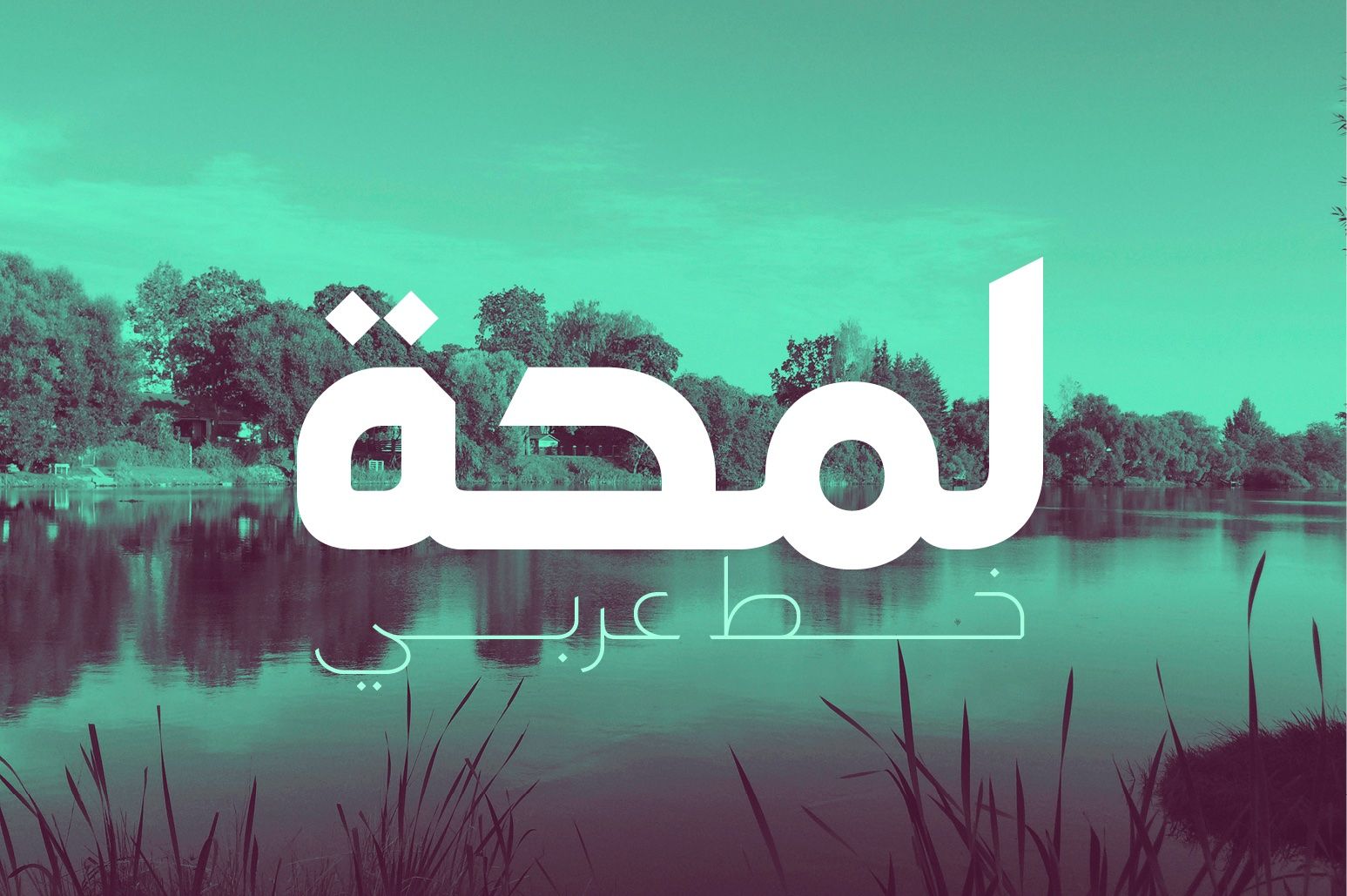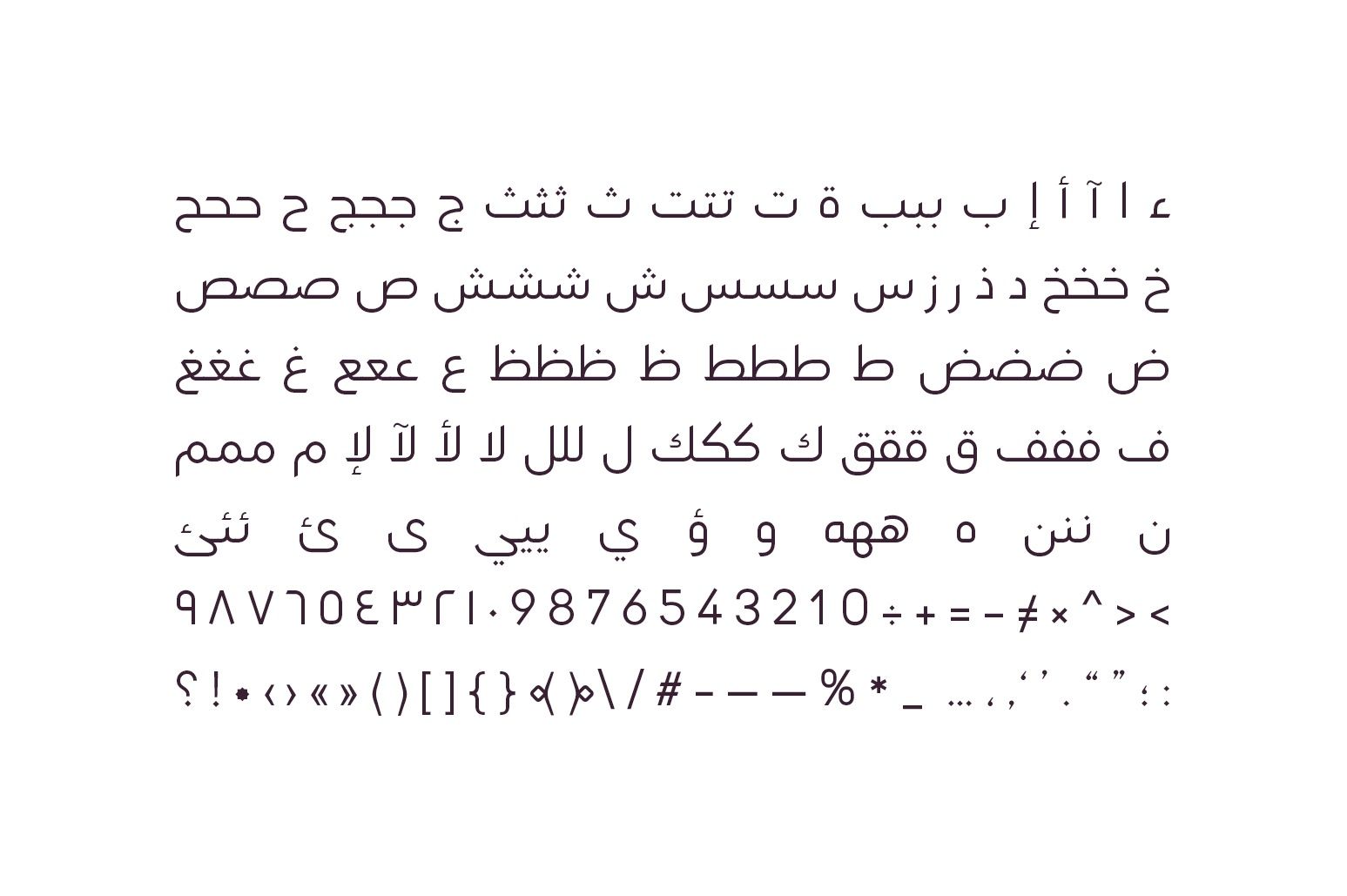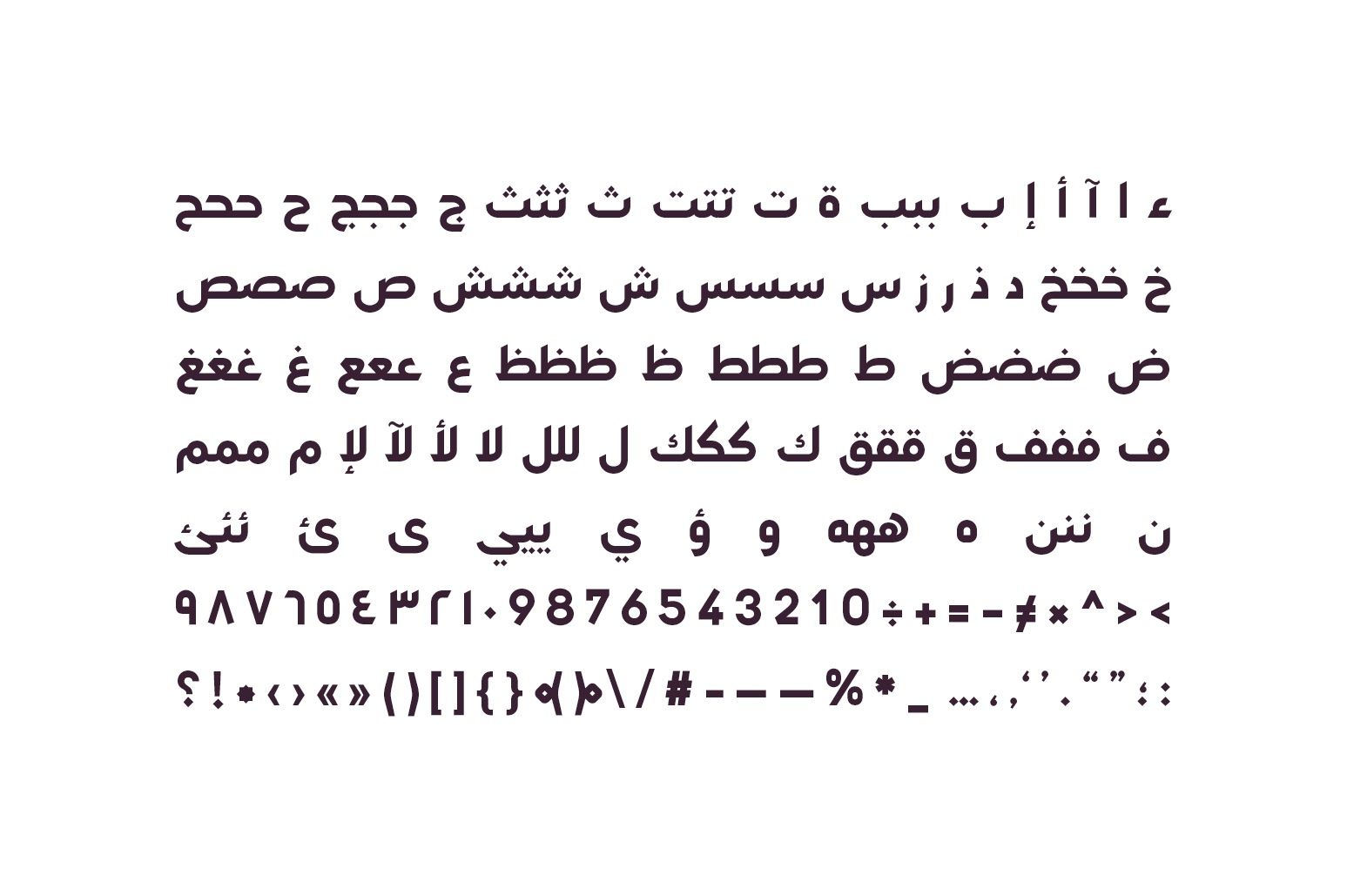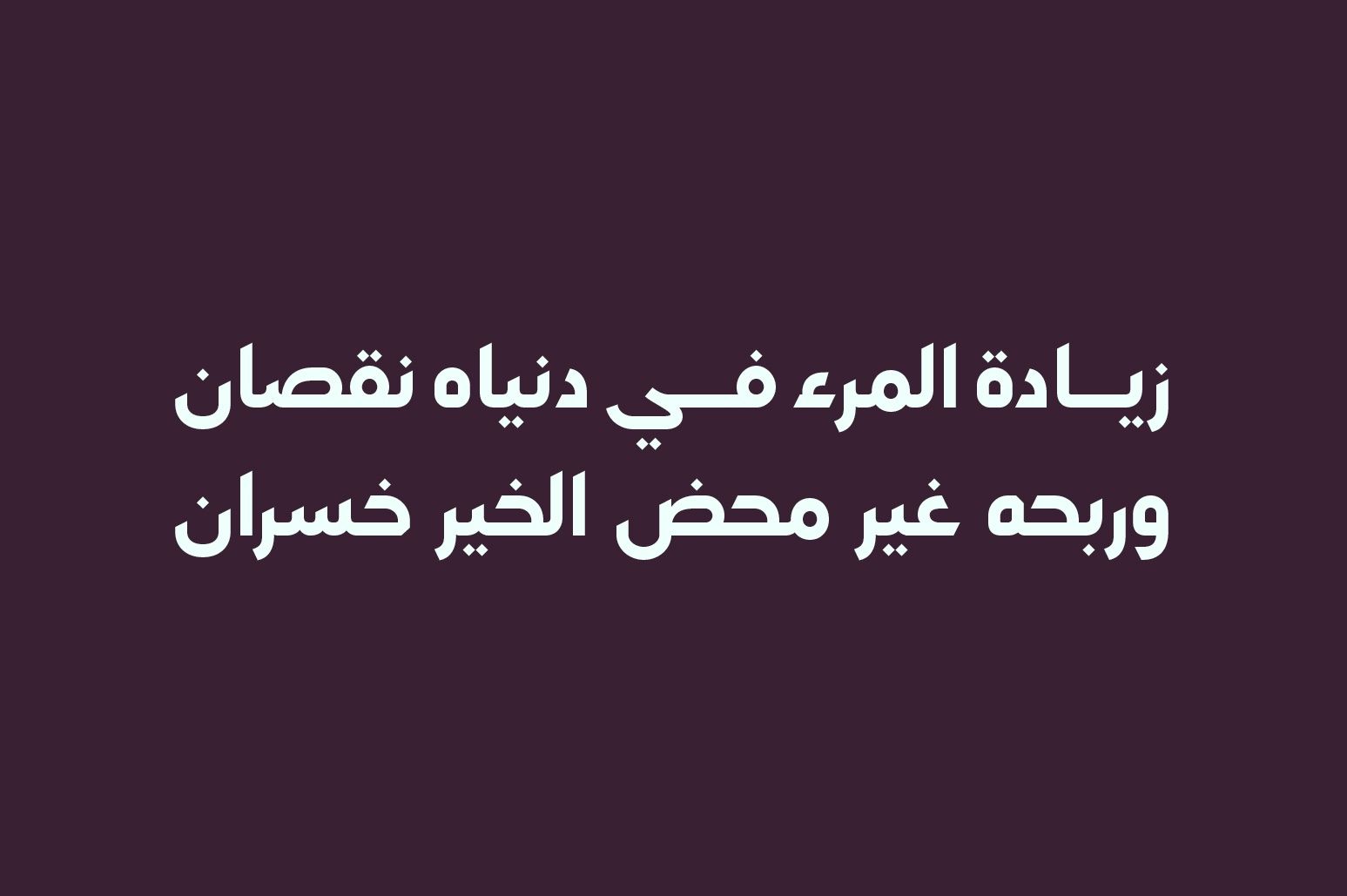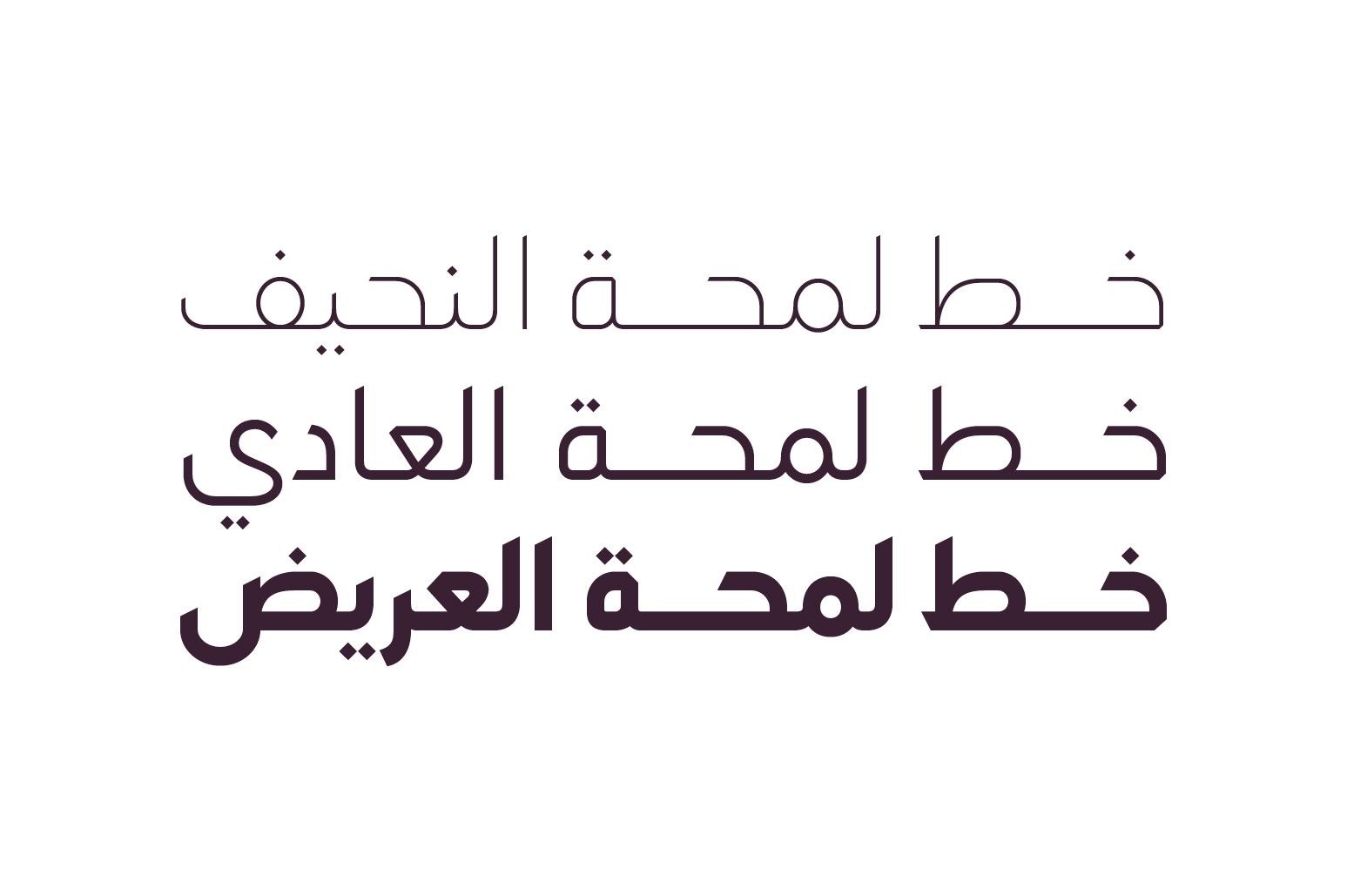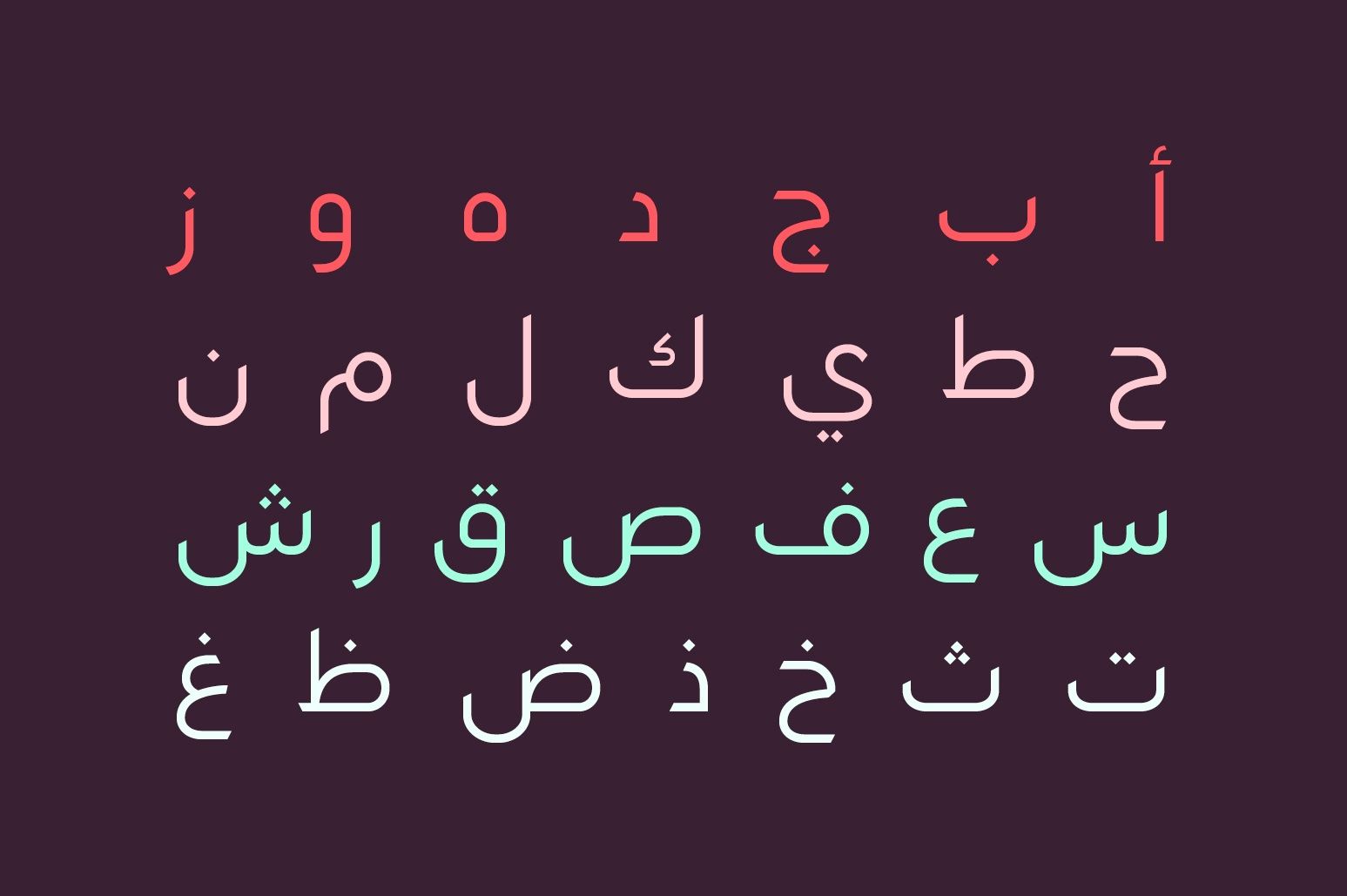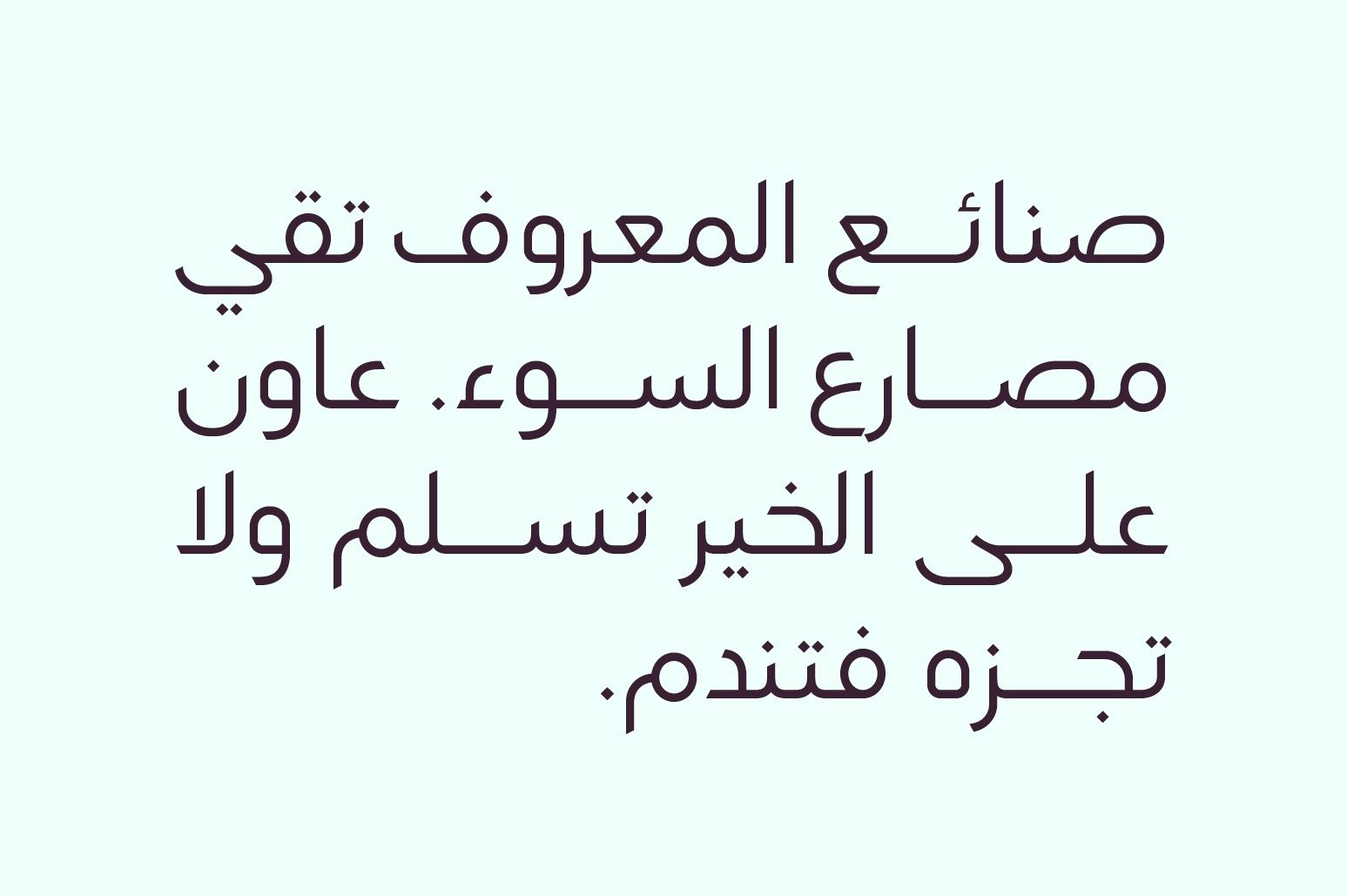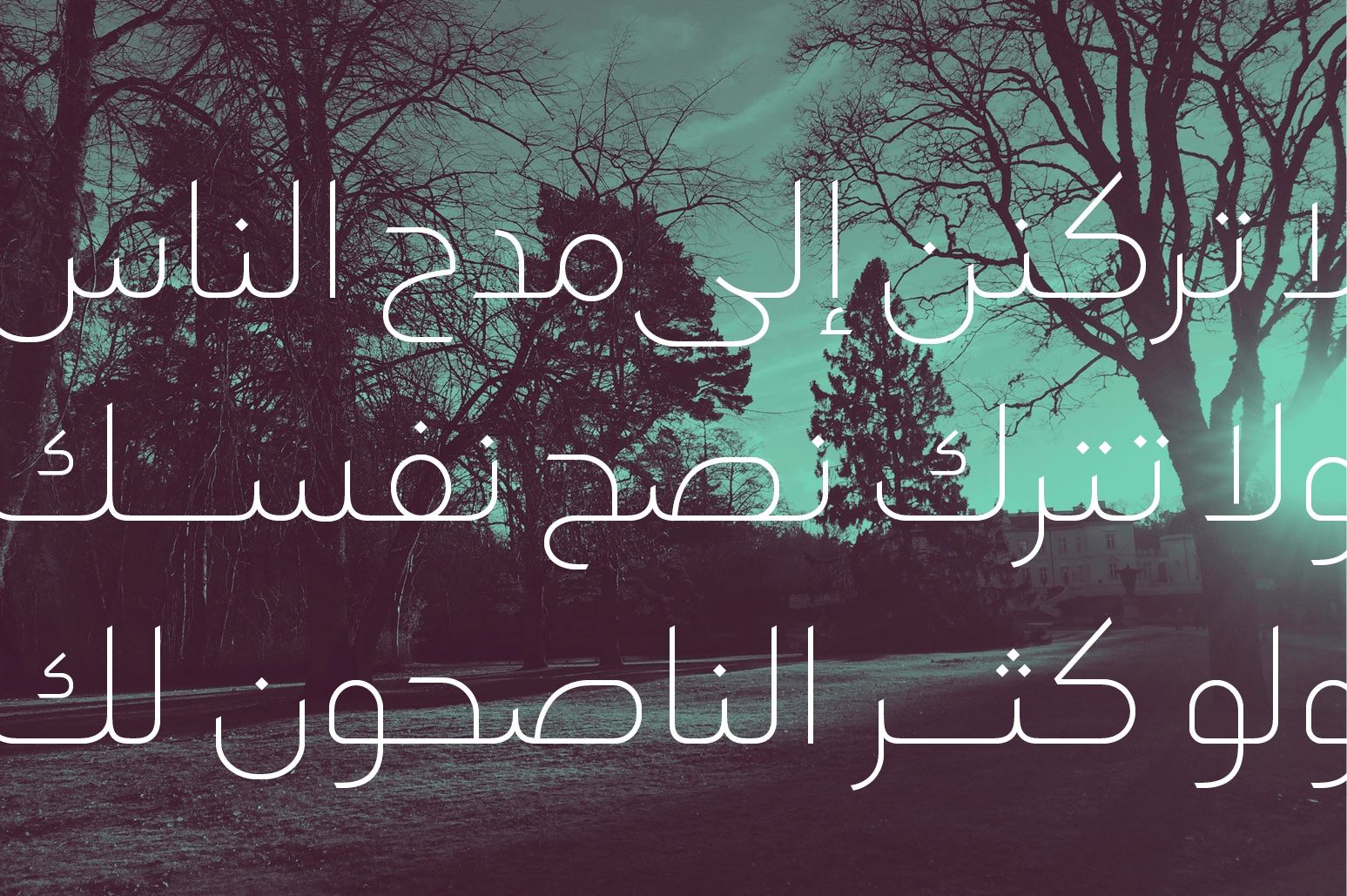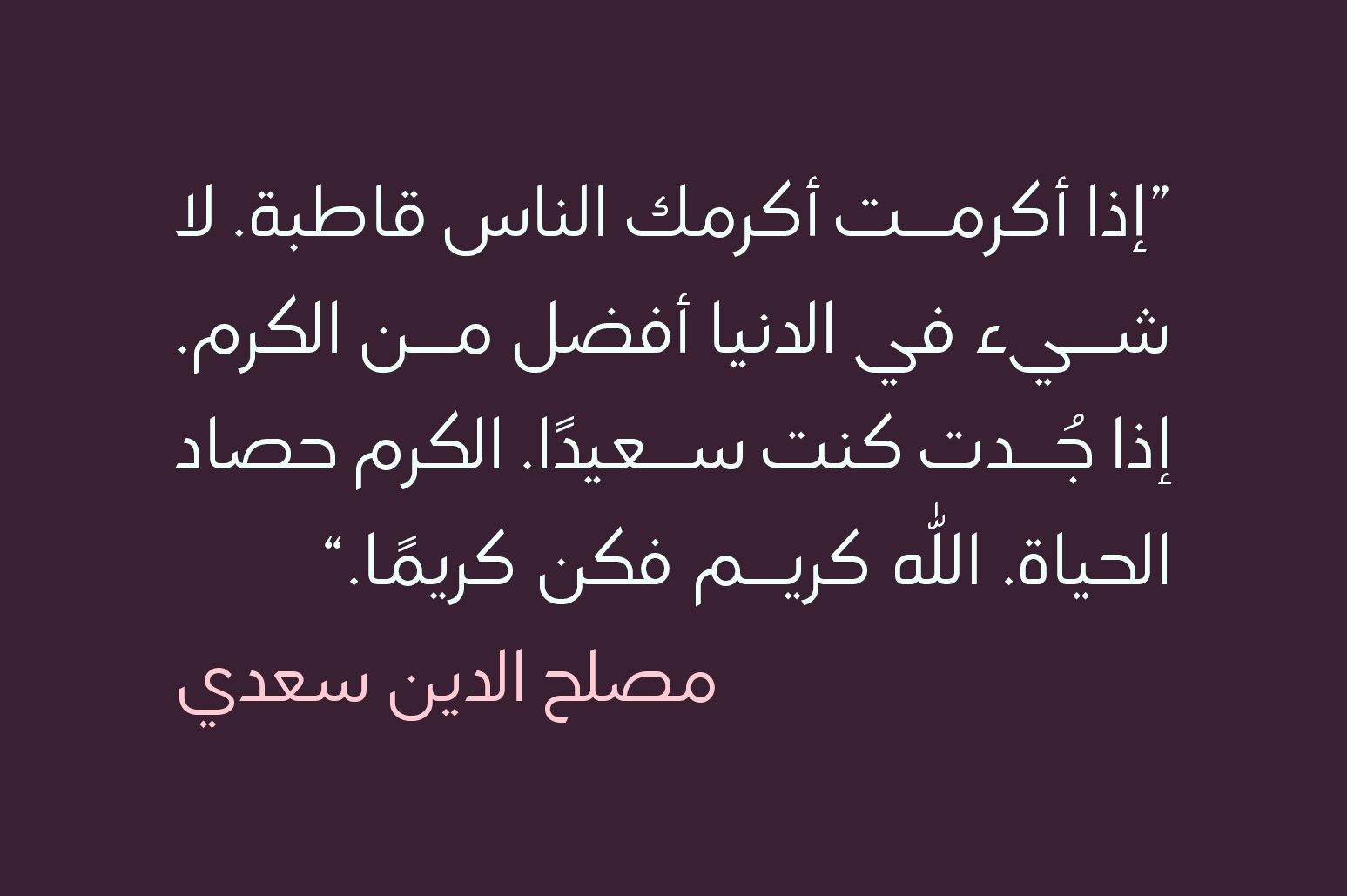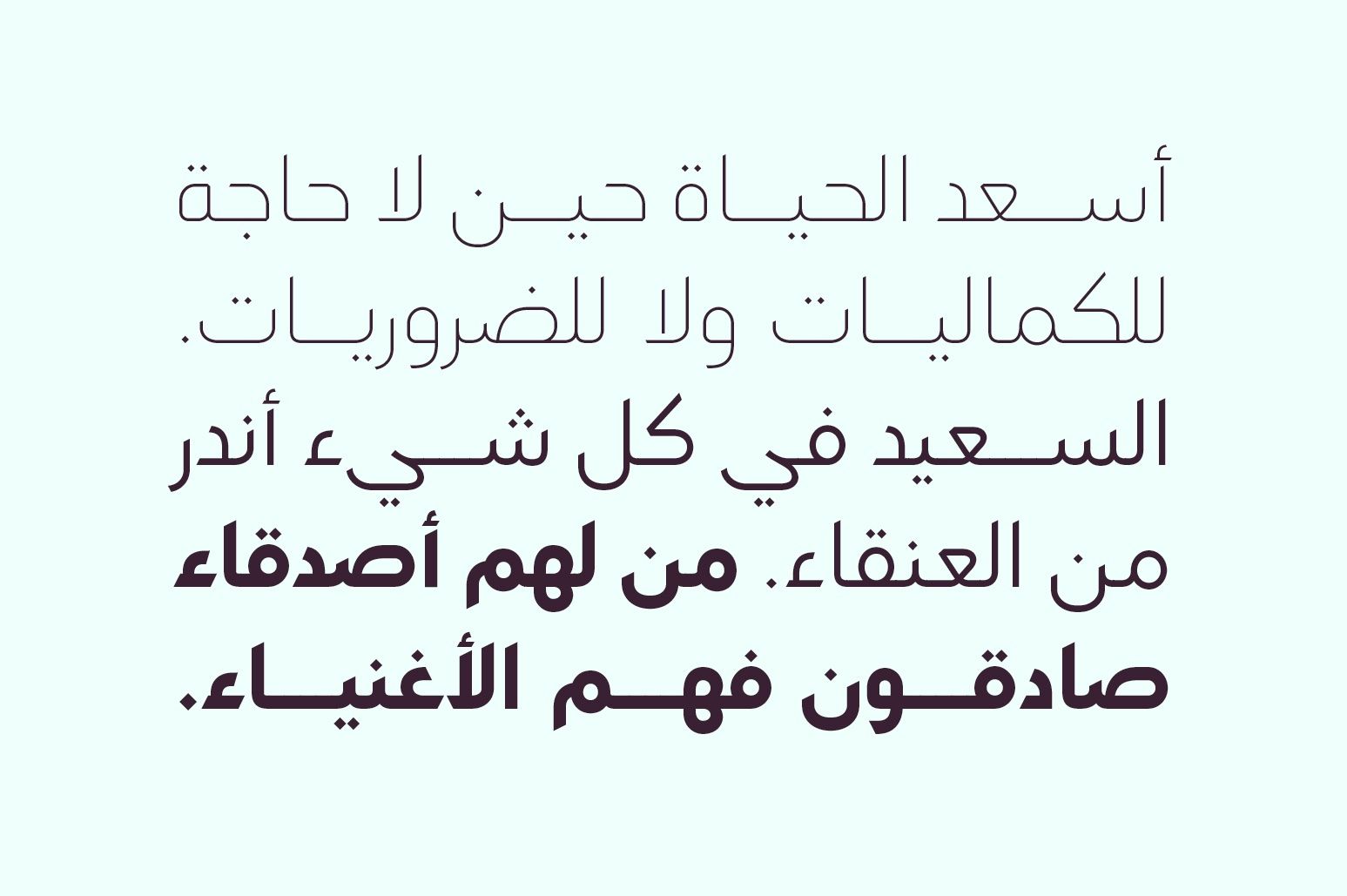
MarketplaceFontsLamhah - Arabic Typeface
Lamhah is an Arabic typeface that features active letterforms with sharp edges. It suits a various range of modern utilizations including web, print and mobile applications. Lamhah typeface consists of three weights (Light, Regular and Bold).